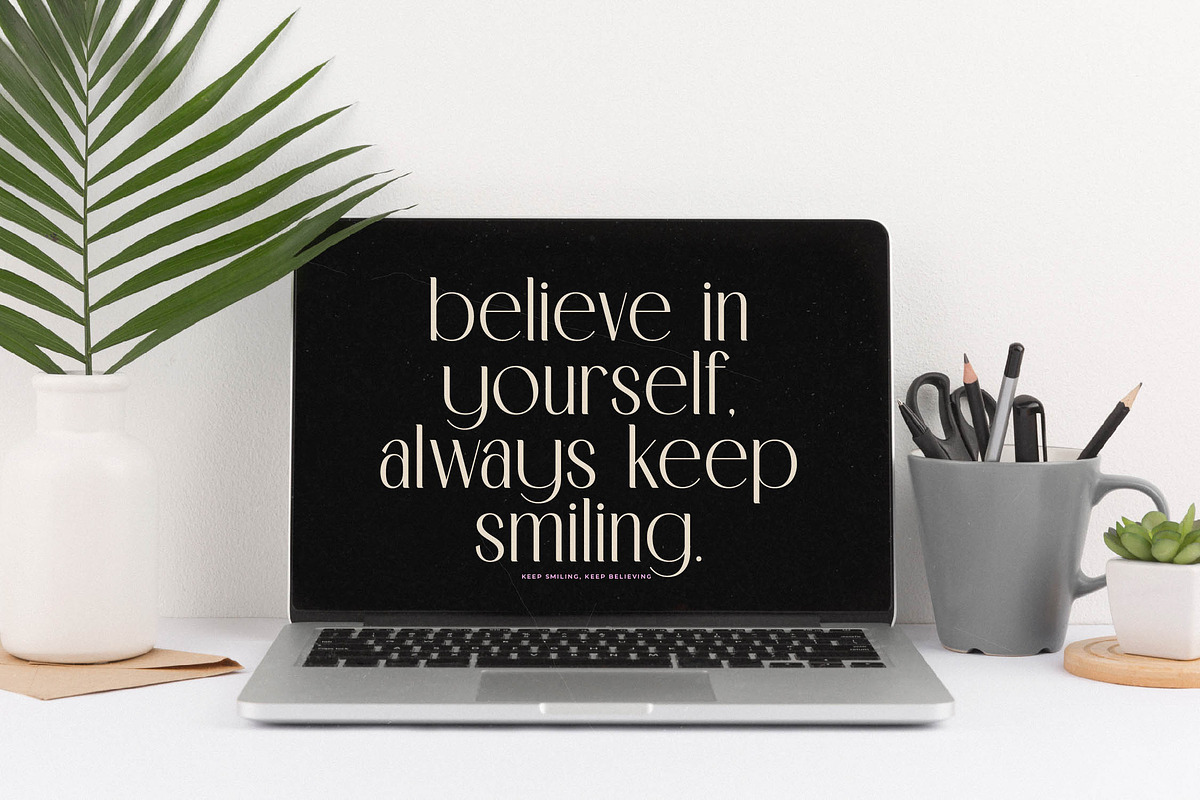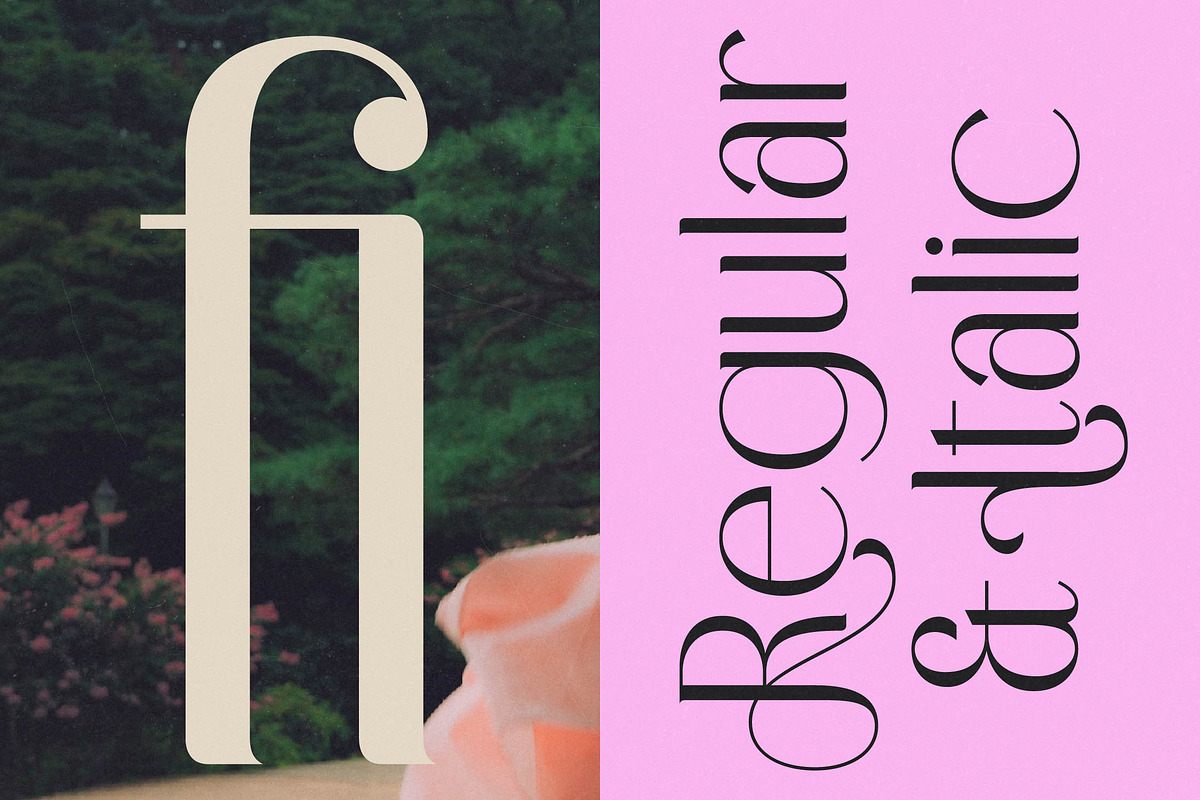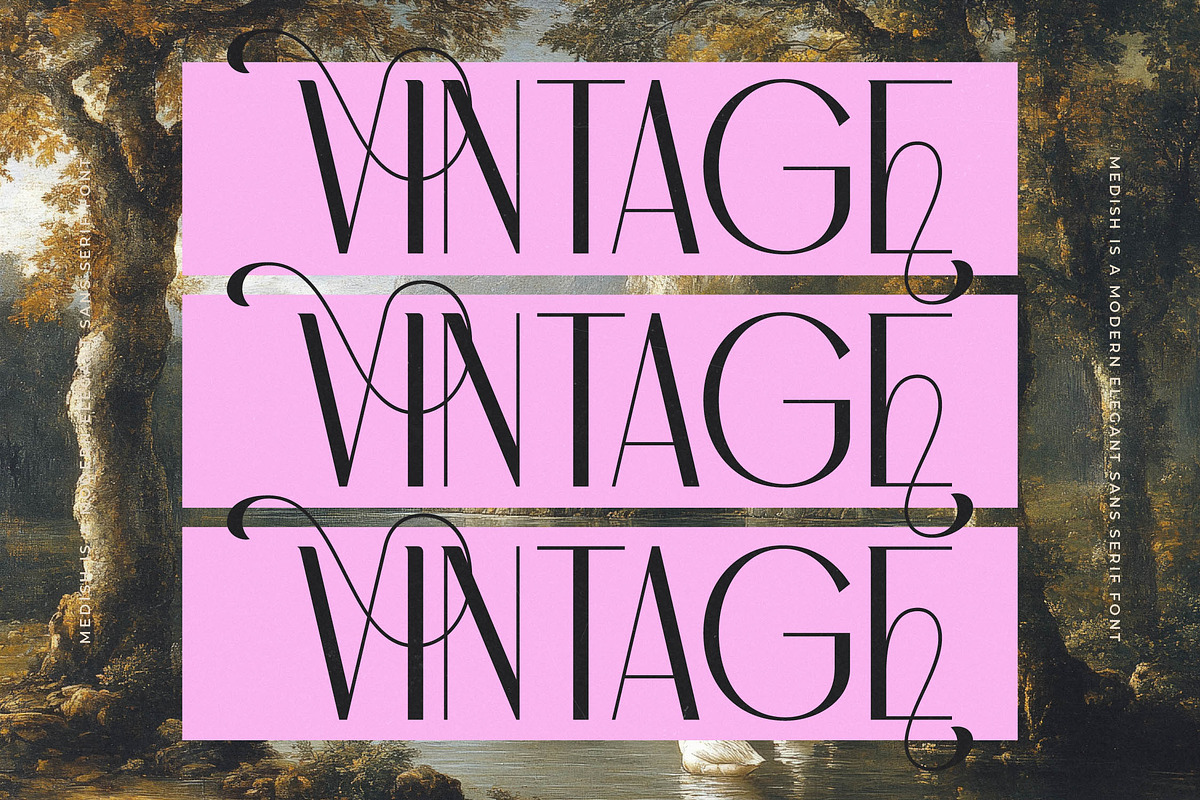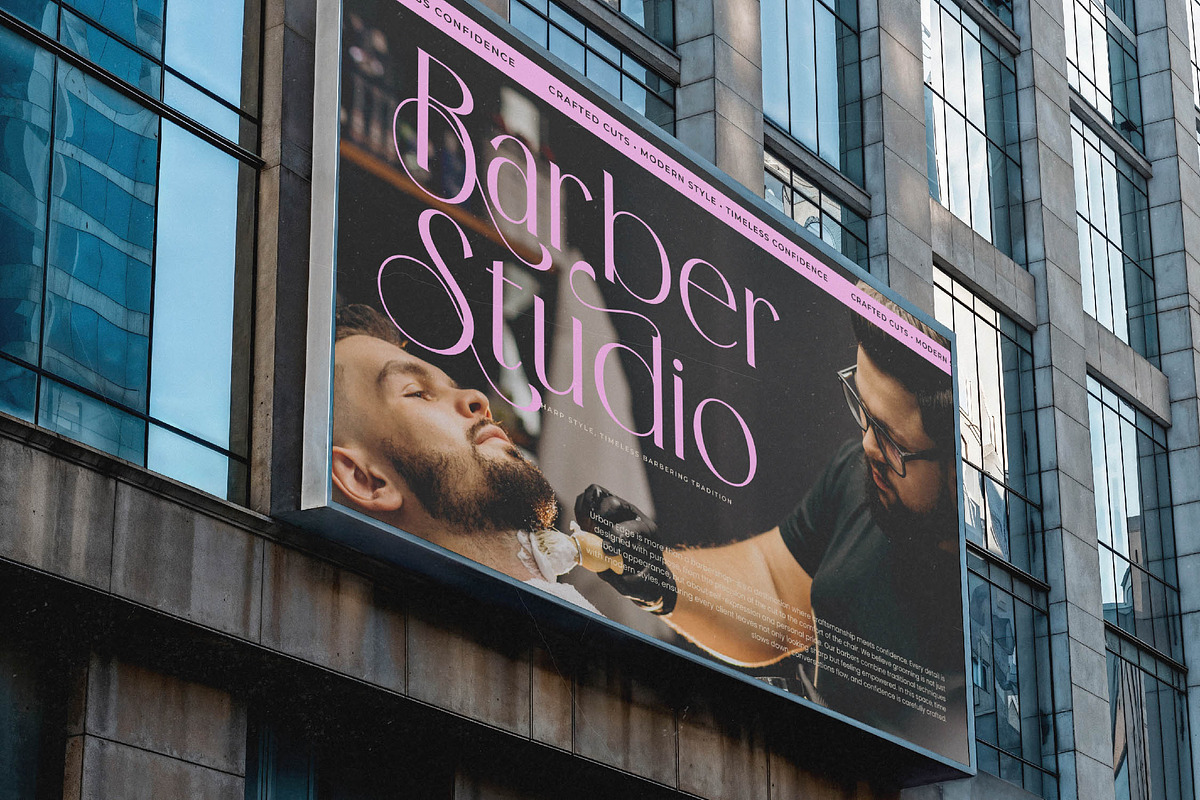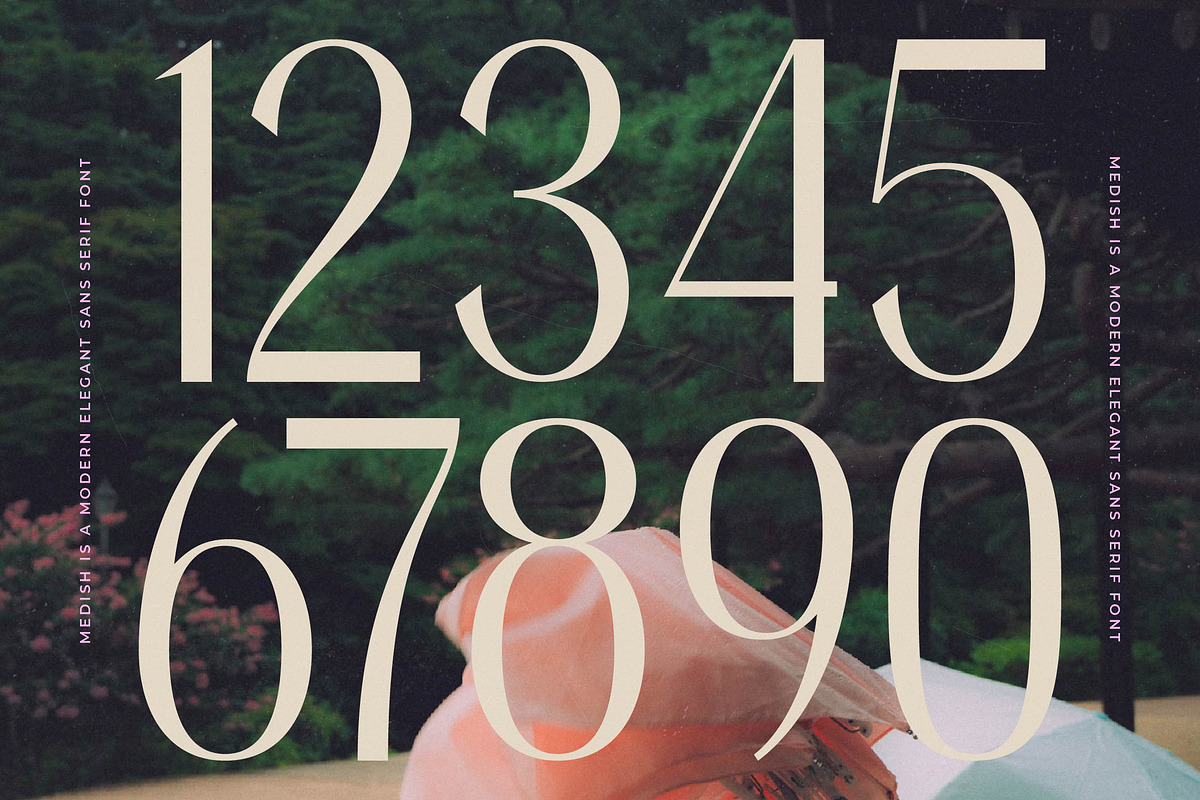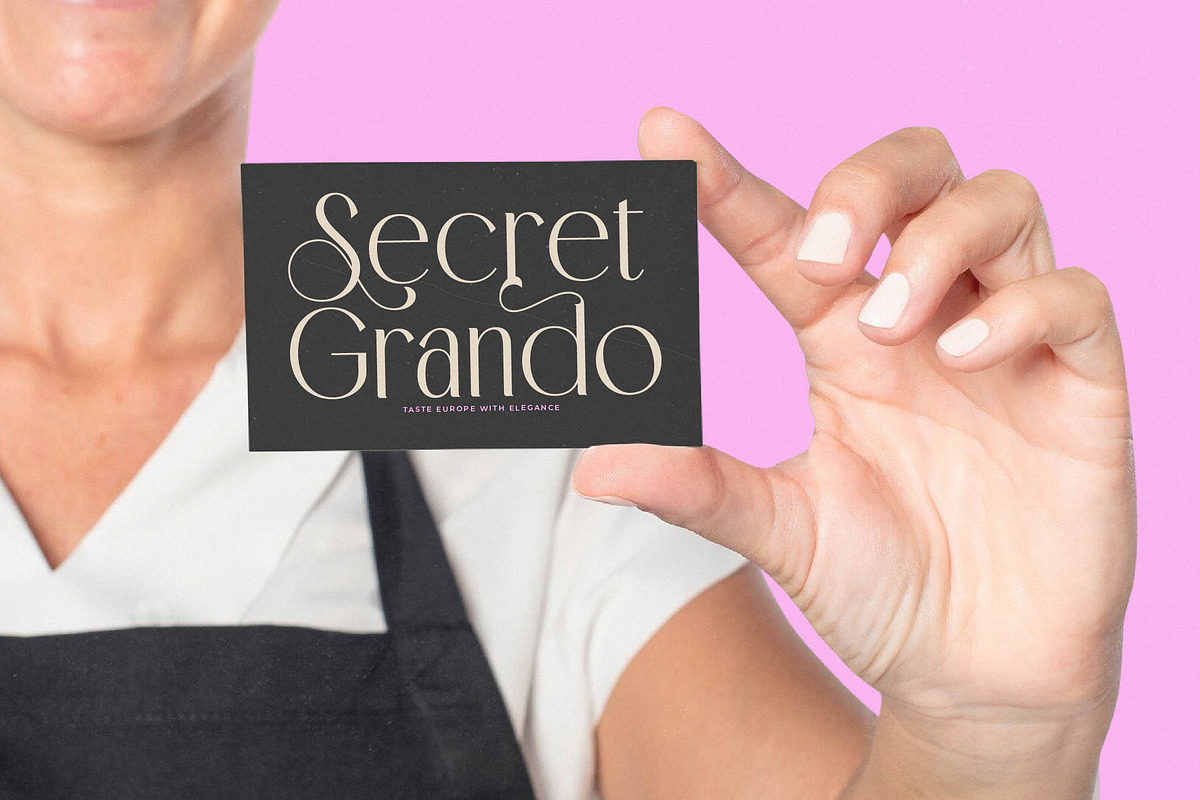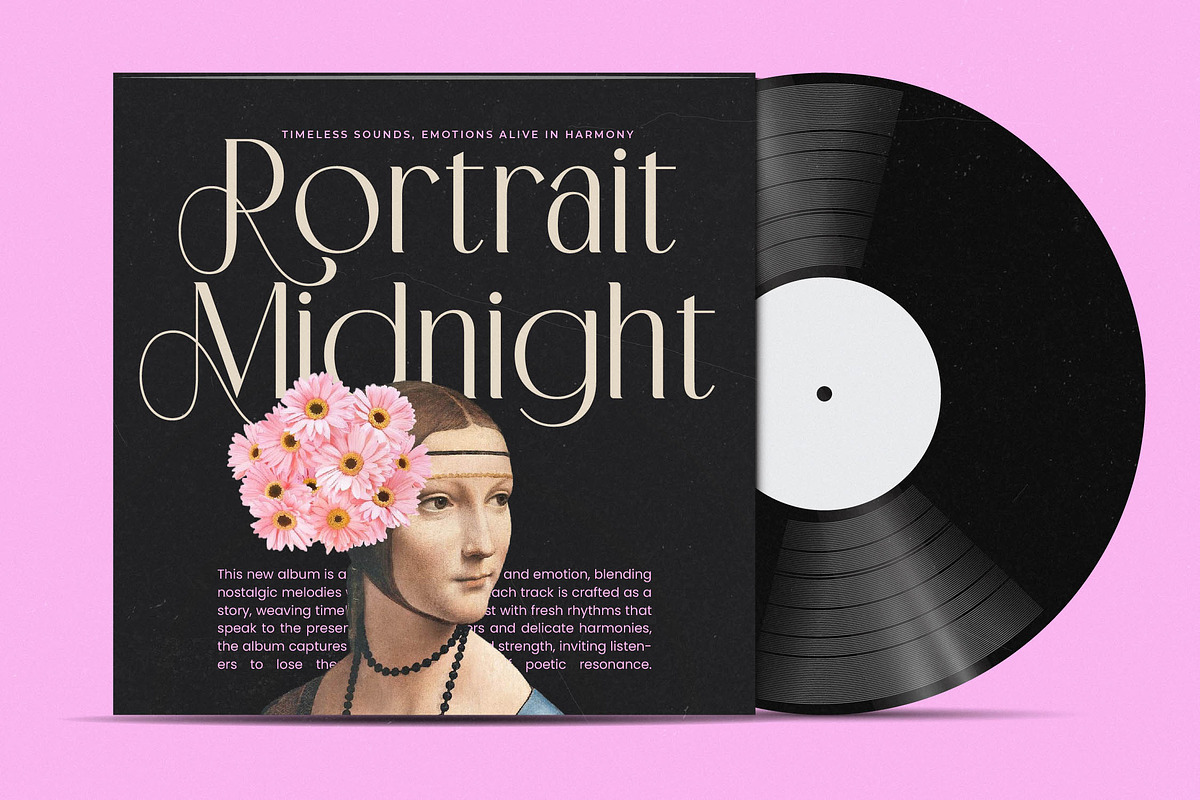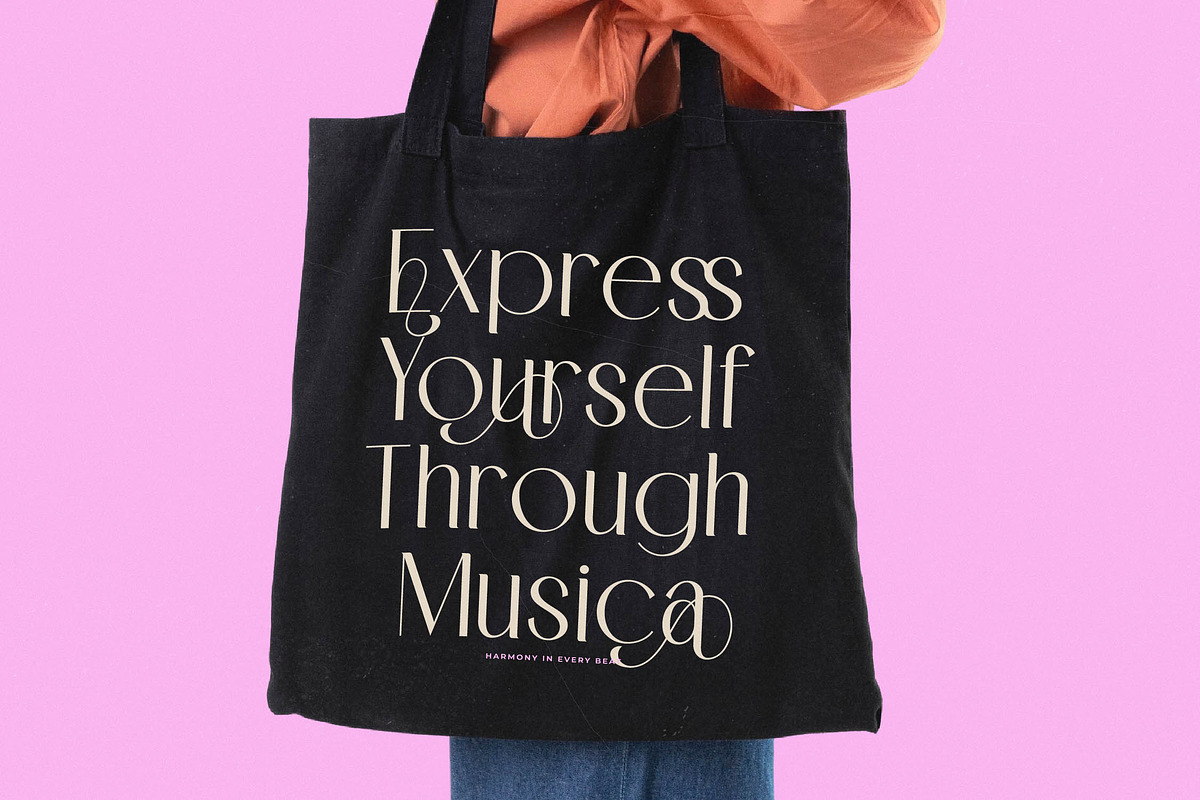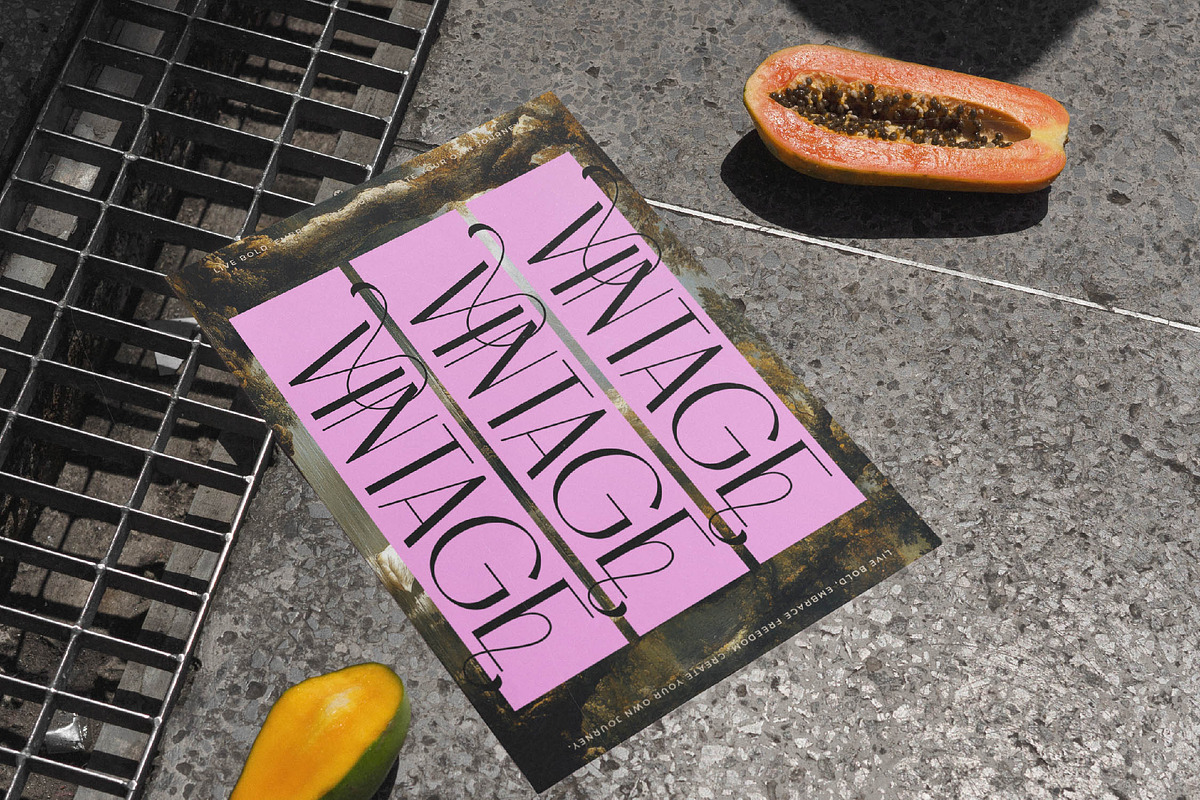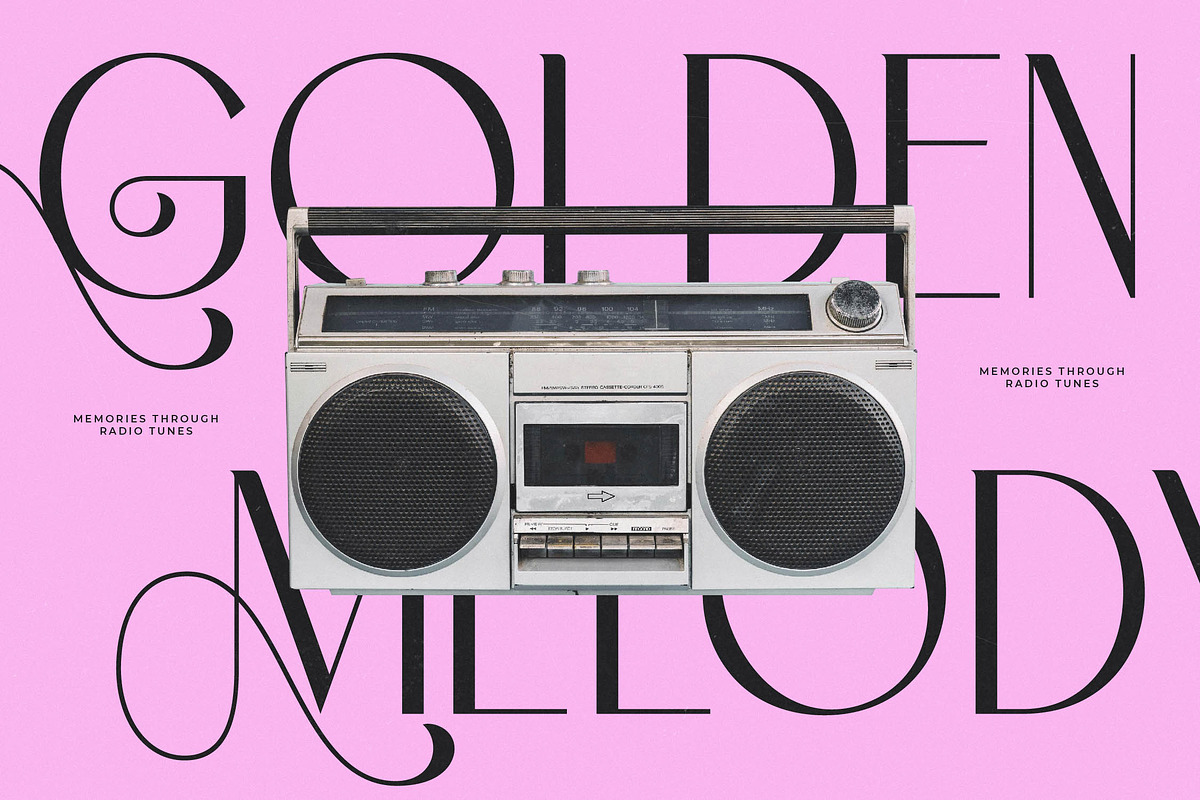
Medish - Modern Elegant Sans Serif
Medish is an exquisite display of modern sophistication, designed to breathe life into high-end creative visions with its effortless grace. This typeface redefines elegance by blending clean, minimalist structures with a touch of romantic flair for a truly unique aesthetic.
Inspired by the quiet beauty of classical landscapes and the sharp lines of modern haute couture, this font captures a timeless aesthetic that resonates with quality. It evokes the feeling of a misty morning in a secret garden, where every curve and stroke tells a story of refined luxury and poetic movement.
With its modern serif display characteristics and luxury typography soul, it provides an unmatched branding impact for projects that demand immediate visual attention. The high-contrast serif elements combined with its sleek sans foundations make it a perfect editorial font for those seeking a balance between tradition and contemporary style.
Aligning perfectly with the current modern serif trend, this typeface addresses the growing demand for character-driven typography in both digital and print media landscapes. It stands out among competitive editorial display fonts by offering a unique silhouette that feels both nostalgic and futuristic simultaneously.
This versatile typeface is the ultimate choice for high-end logo design and comprehensive branding identity systems looking for a signature look. Whether it is used for high-fashion editorial layouts, luxury packaging, romantic wedding stationery, or modern fashion magazines, it elevates the visual narrative instantly.
The font package is fully loaded with a wide array of ligatures and alternates to provide endless creative possibilities for custom lettering styles. It also includes decorative swashes and full multilingual support with international characters to ensure your message reaches a global audience with seamless technical precision.